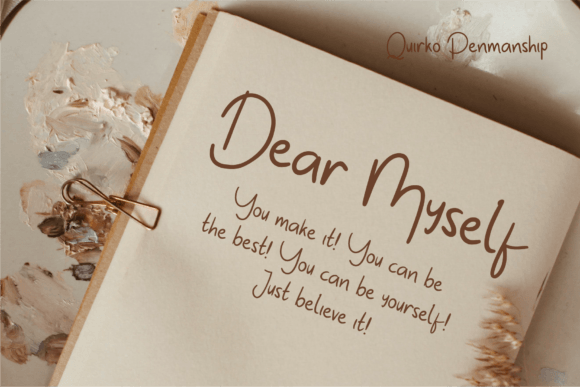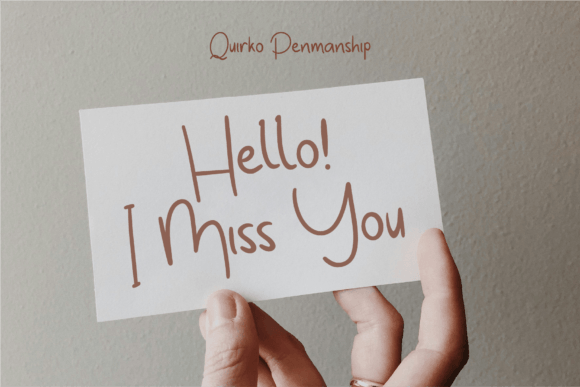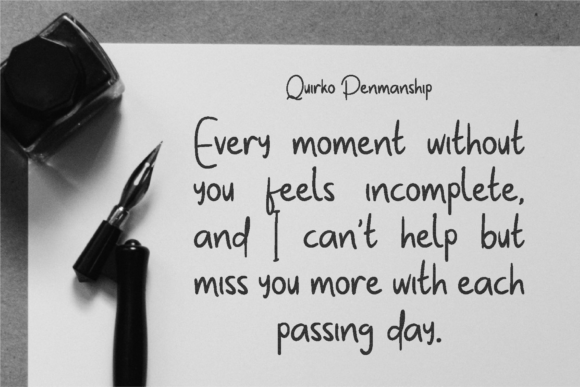
Introduction to Quirko Penmanship Font
Quirko Penmanship is a charming handwritten font that captures the essence of casual elegance.
With its gentle curves and playful strokes, this typeface radiates a romantic, vintage-inspired charm perfect for designs that seek a personal and authentic touch Ideal for wedding invitations, social media posts, branding, or anything that needs a dash of whimsy, Quirko Penmanship effortlessly combines beauty and approachability.
Key Features of Quirko Penmanship Font
Why Choose Quirko Penmanship Font?
Quirko Penmanship Font offers exceptional quality and versatility, making it a valuable addition to your design toolkit. Whether you’re creating for personal projects or commercial use, Quirko Penmanship Font delivers professional results.